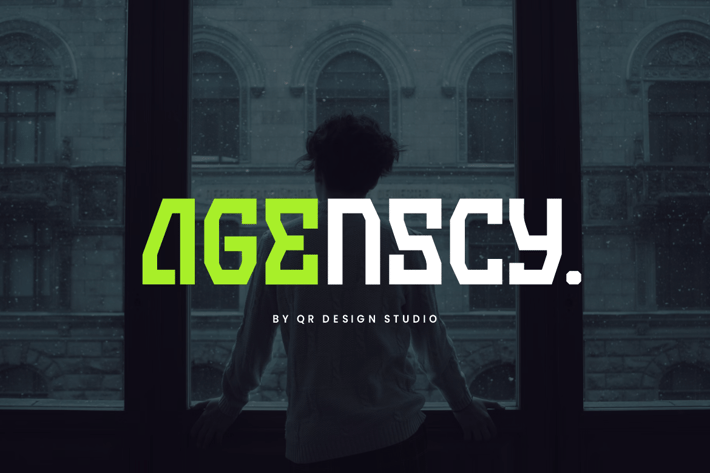
Agenscy - Digital & Futuristic Font
Agenscy Font is a sans serif and authentic display font.
The font is suitable for any branding project like tech, poster, logo, sport, and many more.